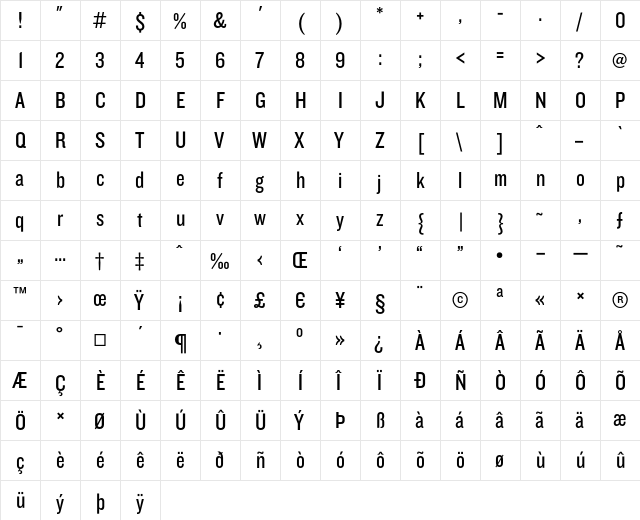
Knockout HTF29-JuniorLiteweight Font Preview
Knockout HTF29-JuniorLiteweight
Design Context for Knockout Typeface
Knockout is a composed and adaptable typeface that performs quietly and consistently across a wide range of design contexts.